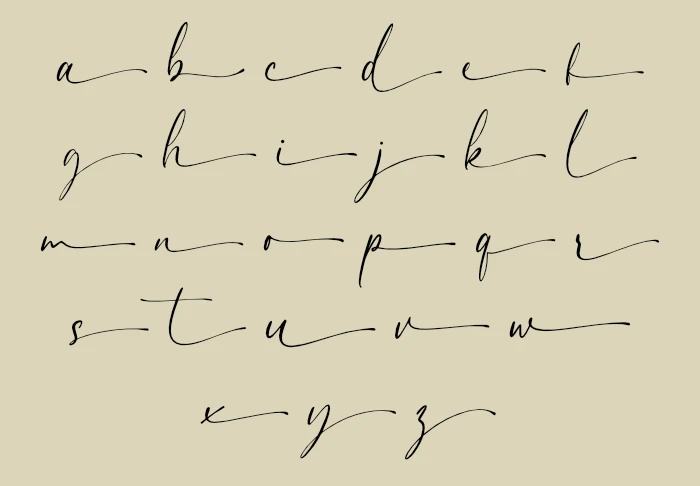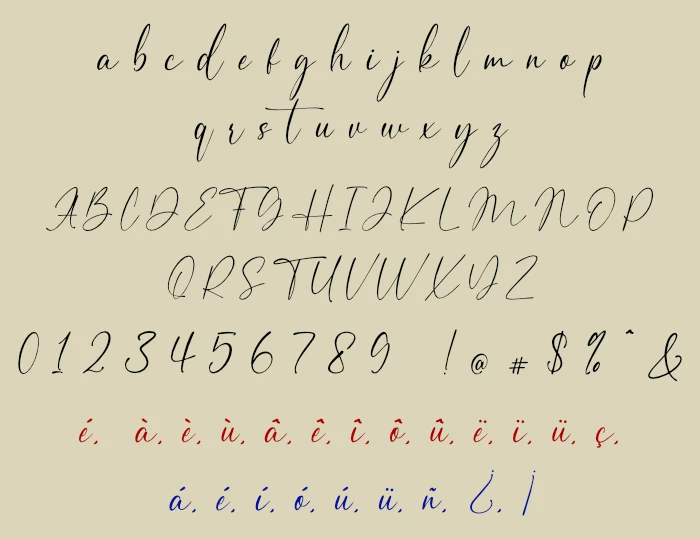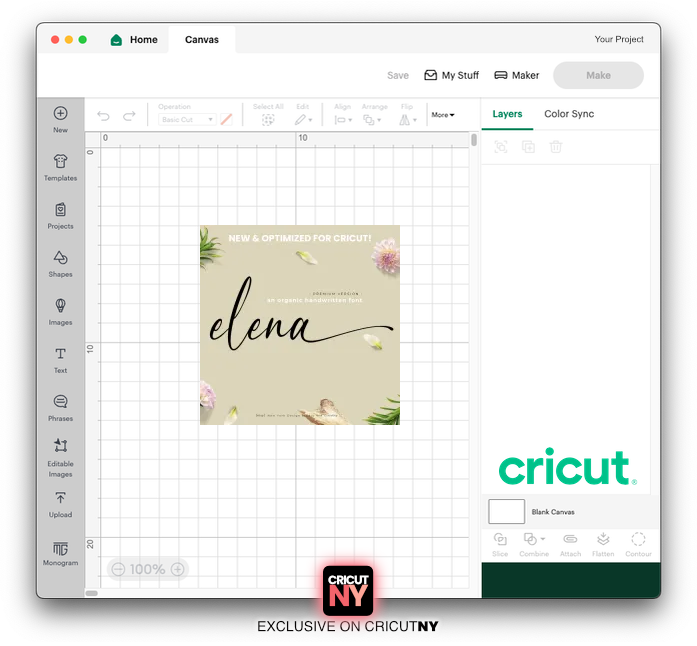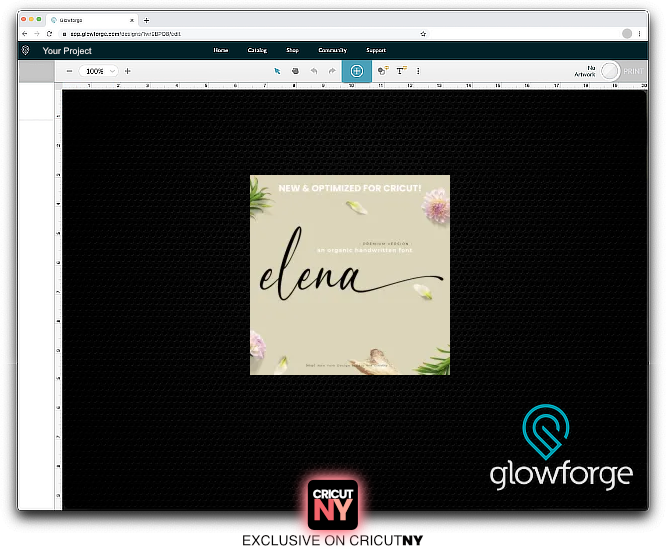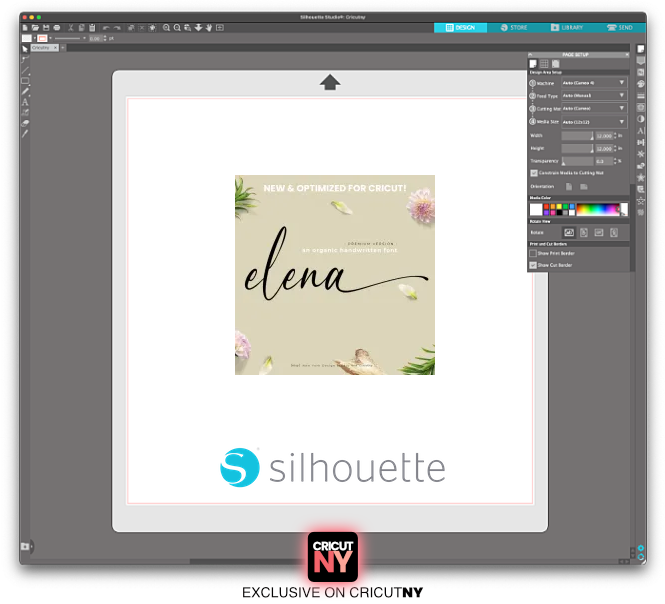
Elena, a realistic handwriting font
Introducing one of the most realistic handwriting fonts available for Cricut and other design applications! This exquisite font boasts of right-tail letters that lend a touch of elegance to any name or word. With its realistic style, the font can even mimic a name into a real signature, perfect for lending a unique and delicate touch to your wedding invitations, signs, or even laser-engraved cutting boards. Don’t miss out on this opportunity to create a lasting impression with your personalized signature!
An added advantage of using the Elena font is that it includes French and Spanish accents. This feature can greatly enhance the readability and authenticity of your text, making it an ideal choice for multilingual projects.